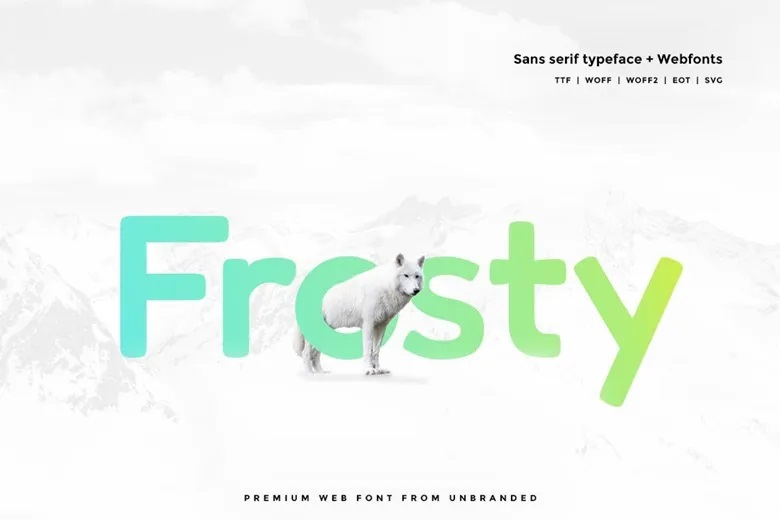
Frosty Font
Frosty is a friendly and modern sans serif typeface with clean and softened corners. It is great for making strong headlines, fun graphics and logo designs. It is easy and pleasant to the eye and therefore suitable for use in both print and web based media projects.
Frosty Sans Serif Font